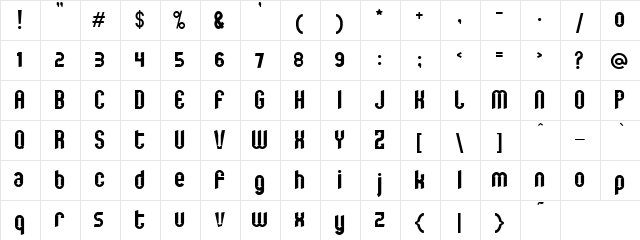
Up and down Regular
Design Context for Up and down Typeface
Up and down is a composed and adaptable typeface that performs quietly and consistently across a wide range of design contexts.